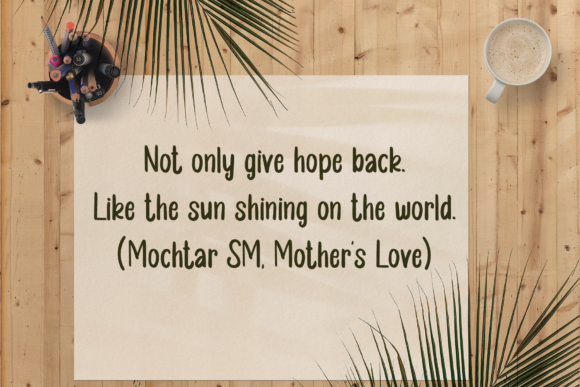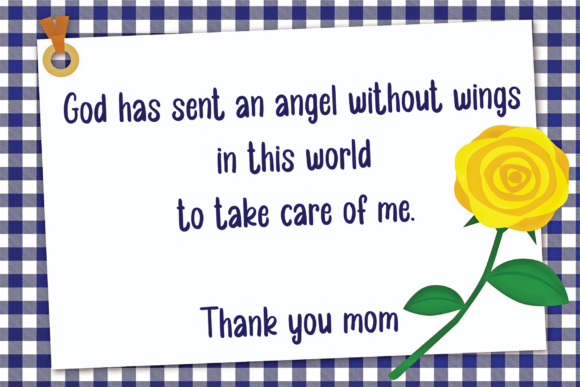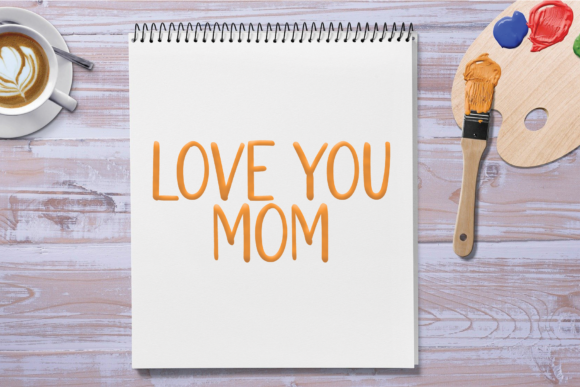
About Mothers Day Font
Mothers Day is a fun and playful handwritten font. Clean and a little bit quirky, this font is the perfect fit for all of your logos, branding, social media, and crafty DIY projects.